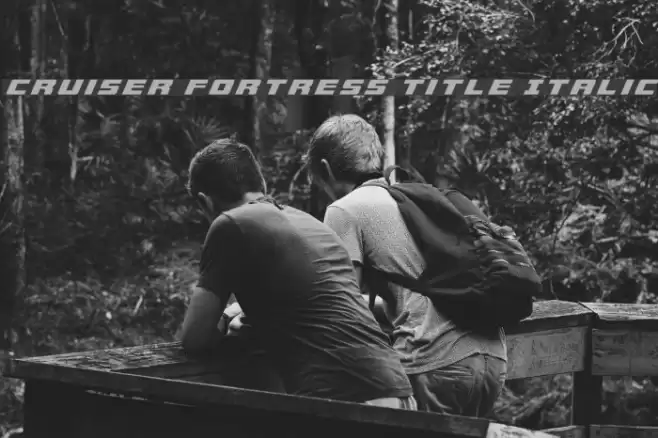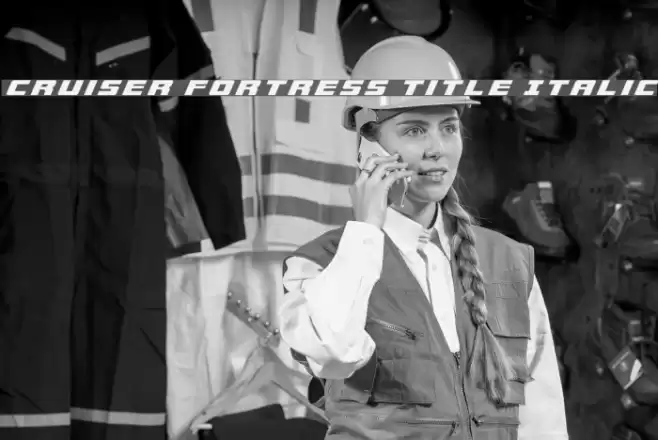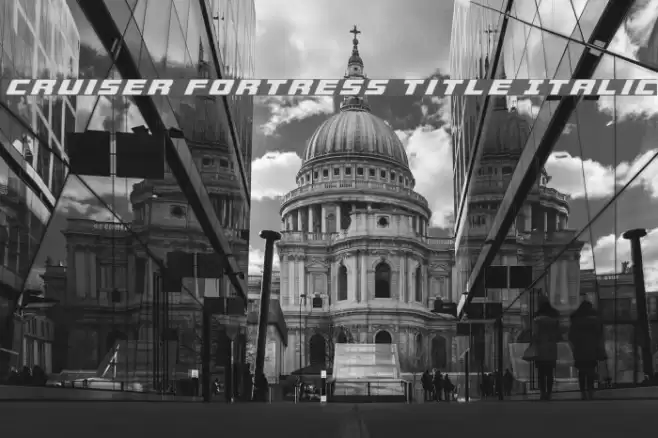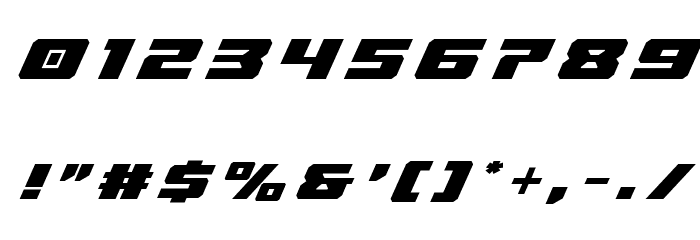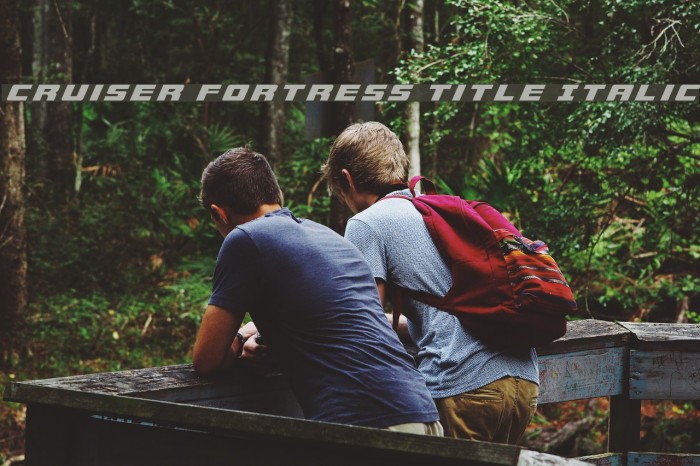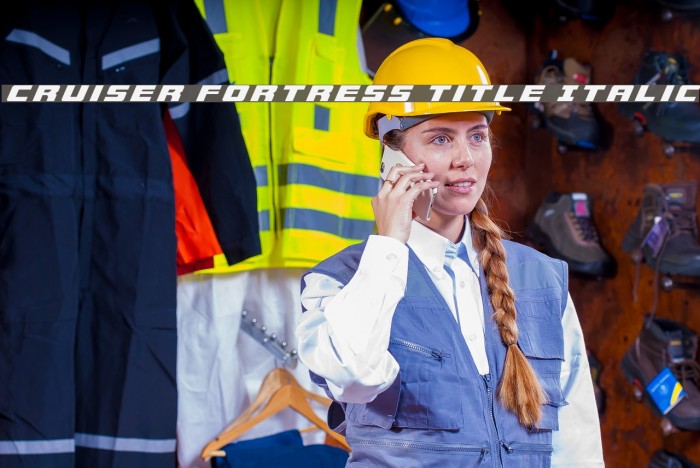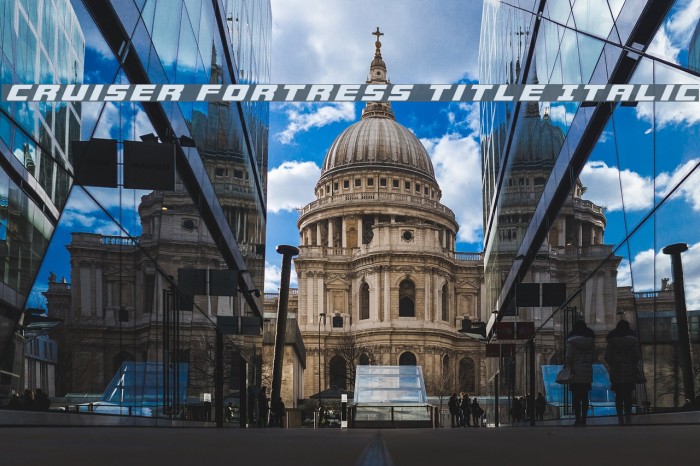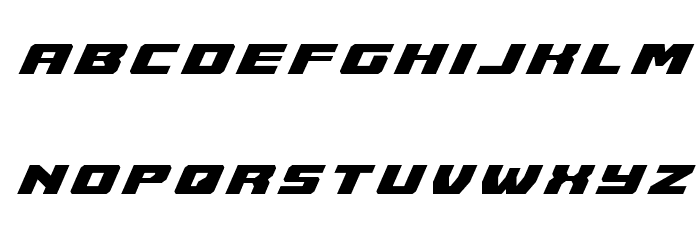
Cruiser Fortress Title Italic Font
Cruiser Fortress Title Italic Description
This font features a bold and dynamic design with a strong italic slant, giving it a sense of motion and energy. The characters are angular and geometric, with sharp edges and a futuristic feel. The uppercase and lowercase letters maintain a consistent style, with the lowercase slightly smaller but equally bold. Numbers and special characters are designed to match the overall aesthetic, ensuring uniformity across all text elements. The font's boldness and unique style make it stand out, ideal for projects that require a modern and impactful look.
A bold, italic, and futuristic font with angular, geometric characters from Sci-fi fonts.
- Proposed Projects: Ideal for use in technology branding, sports team logos, video game titles, and dynamic poster designs.